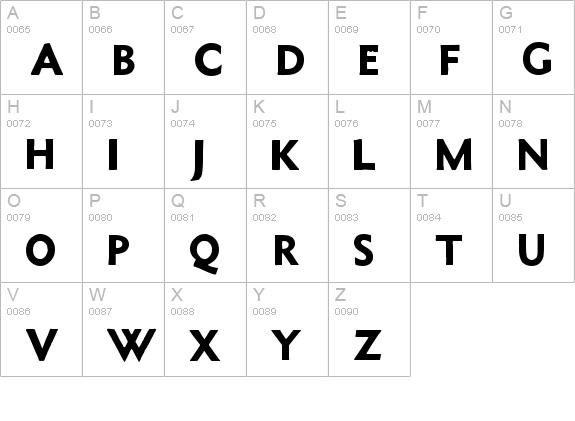
Metro Black Alt HPLHS is a maximum-weight, dramatic variant in the Metro typeface family \xE2\x80\x94 well suited to maximum-impact headlines, posters, and packaging.
The Metro Black Alt HPLHS font is a sleek and modern typeface that exudes sophistication and elegance. With its bold and clean lines, this font is perfect for creating eye-catching designs that demand attention. Whether you're working on a branding project, poster design, or website layout, the Metro Black Alt HPLHS font will elevate your work to the next level. Best of all, this stunning font is available for free download at FontsMarket.com. So go ahead and add this versatile typeface to your font library today and unleash your creativity with Metro Black Alt HPLHS.